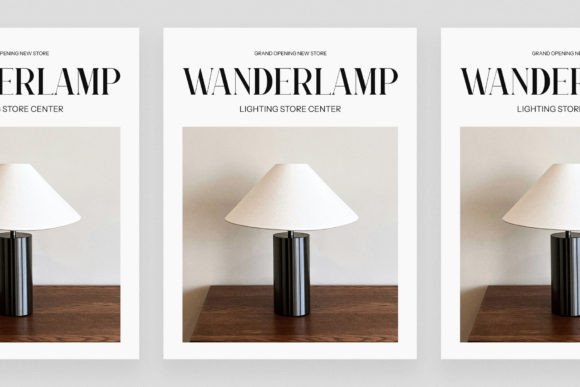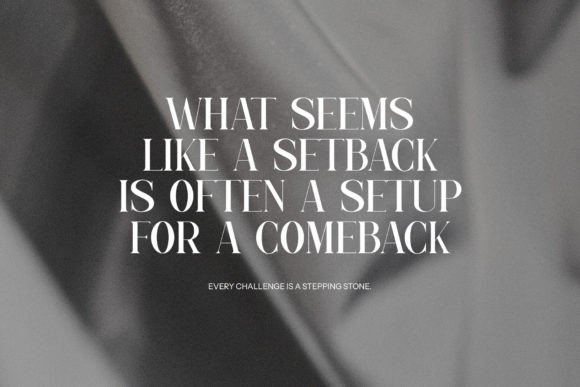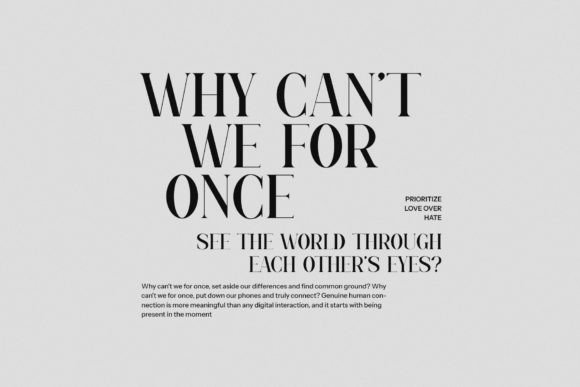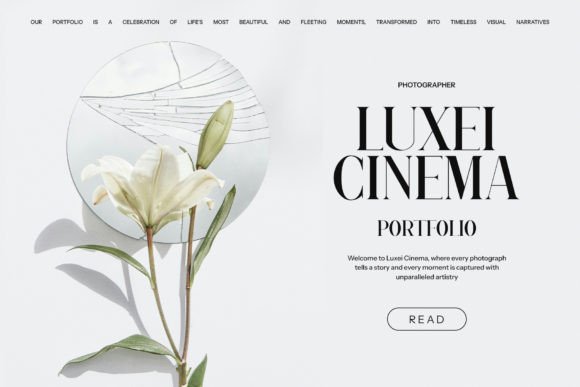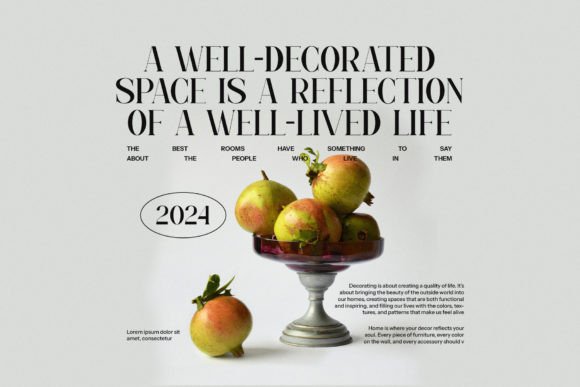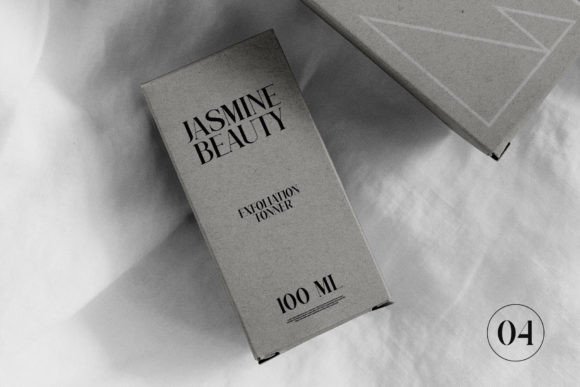
Introduction to Magina Font
Have you ever stared at a blank canvas, waiting for the perfect font to bring your creative project to life? The anticipation is palpable, and the search can be daunting. But what if you stumbled upon a font that effortlessly blends elegance with modernity, leaving you speechless and inspired? Welcome to the world of Magina Font, a game-changing design resource that’s about to elevate your brand identity and logo designs.
As a designer, you understand the importance of selecting the right font to convey your message and leave a lasting impression. Magina Font is that perfect combination of sophistication and creativity, making it an invaluable asset for any design project. With its high-quality design and transparent background, this font is a free download waiting to be unleashed on your next creative endeavor.
Whether you’re crafting social media posts, designing advertisements, or building your brand image, Magina Font is the perfect companion to help your designs stand out in a crowded market.
Key Features of Magina Font
- High-quality design with a transparent background, perfect for creative projects.
- Magina Font offers a unique and modern aesthetic, ideal for use in logos, branding, and other visual identity projects.
- Supports a wide range of languages, making it a versatile design resource for global creative projects.
Honest Review: Magina Font
As a designer, I’m always on the lookout for high-quality fonts to add a touch of sophistication to my creative projects. The Magina Font is one such find that caught my eye.
- ✨ High-quality design: The Magina Font boasts clean lines, elegant curves, and a professional feel that makes it perfect for a wide range of design applications.
- ✨ Versatility: The font is available in several weights and styles, allowing you to choose the perfect version for your specific design needs.
- ⚠️ Limited language support: Unfortunately, the Magina Font doesn’t support all languages, which may be a drawback for designers working on international projects.
- ⚠️ No transparent background: While the font itself is beautiful, it doesn’t come with a transparent background option, which may limit its use in certain design scenarios.
Overall, I’m impressed with the Magina Font’s design quality and versatility. While it may have some limitations, it’s a great addition to any designer’s toolkit – especially considering its free download status.
Magina Font
Tips for Getting the Most Out of Magina Font
- Use Magina Font on a transparent background for a more modern look.
- Combine Magina Font with other design elements for a cohesive look.
- Business cards and marketing materials.
- Social media graphics and advertisements.
- Wedding invitations and event materials.
Alternatives to Magina Font
The Great Vibes Font is a high-quality, elegant script font ideal for creative projects that require a touch of sophistication. It’s perfect for wedding invitations, art prints, and other design elements where a refined feel is desired.
When compared to Magina Font, Great Vibes Font has a more refined and delicate appearance, making it suitable for projects where a subtle, handwritten look is needed.
The Alex Brush Font is a beautiful, high-quality script font that’s perfect for designers working on creative projects that require a personal touch. It features a transparent background and a wide range of styles, making it suitable for various design elements.
When compared to Magina Font, Alex Brush Font has a more classic and timeless appearance, making it ideal for projects where a traditional, elegant feel is desired.